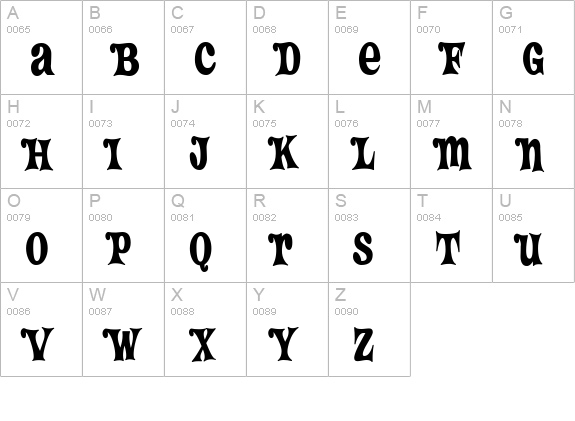
Crazy HaroldCondensed Alt Flare font is a bold and dynamic typeface that exudes a sense of energy and creativity. With its playful curves and eye-catching flair, this font is perfect for making a statement in your designs. Whether you're working on a poster, logo, or branding project, Crazy HaroldCondensed Alt Flare font will add a touch of excitement and personality. Best of all, this unique font is available for free download at FontsMarket.com. Don't miss out on the opportunity to enhance your designs with this one-of-a-kind typeface. Download Crazy HaroldCondensed Alt Flare font today and let your creativity shine!